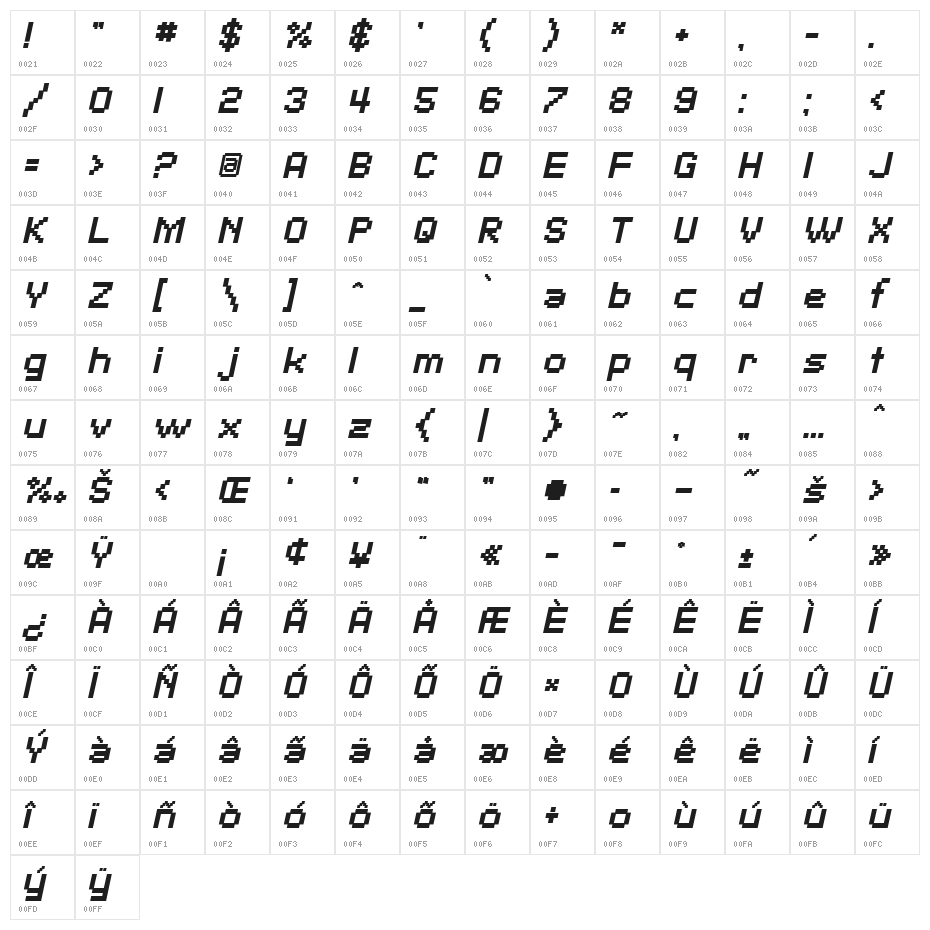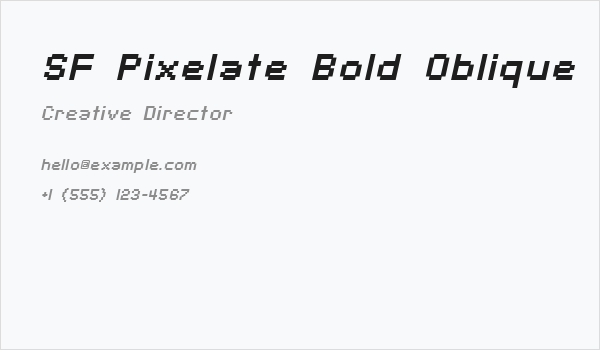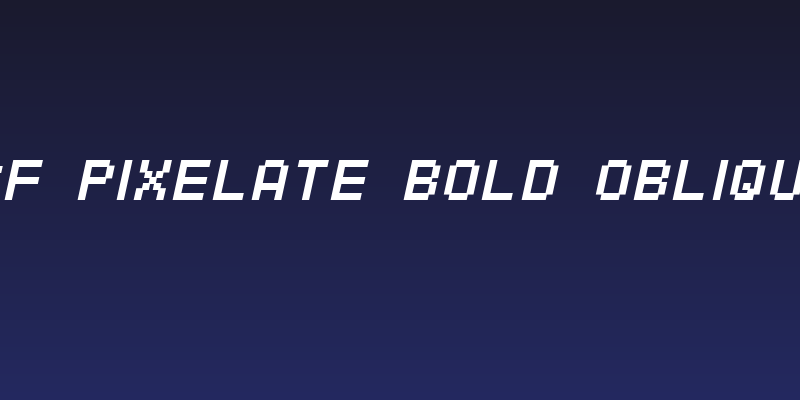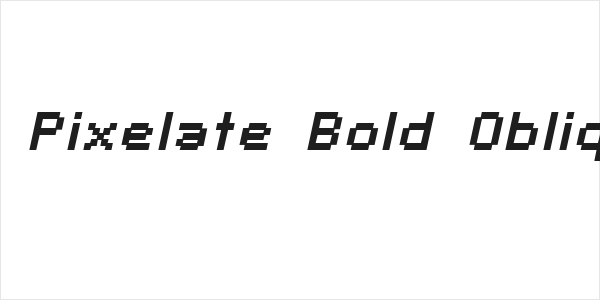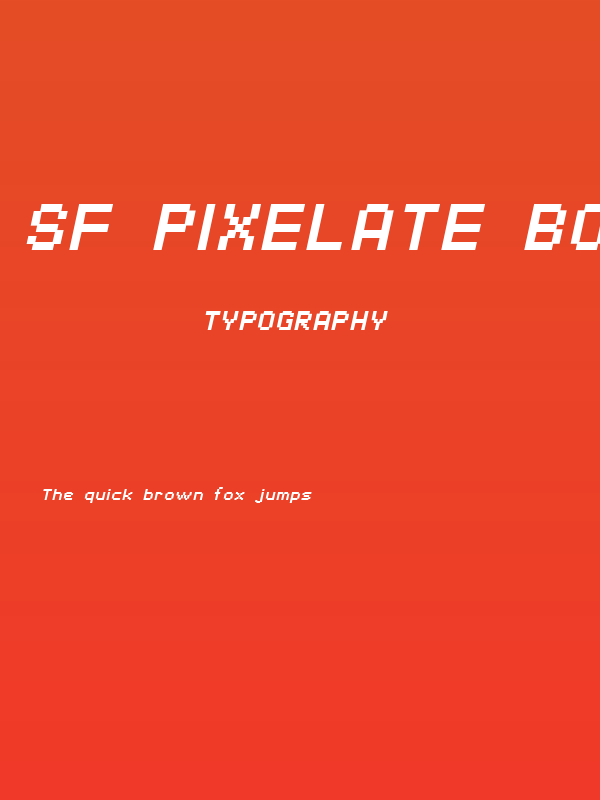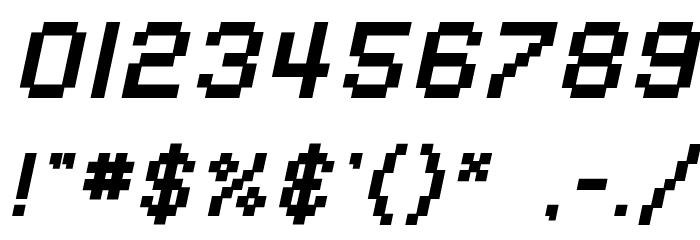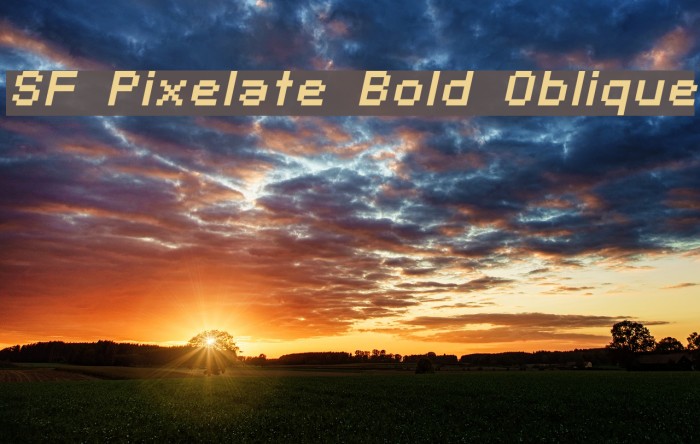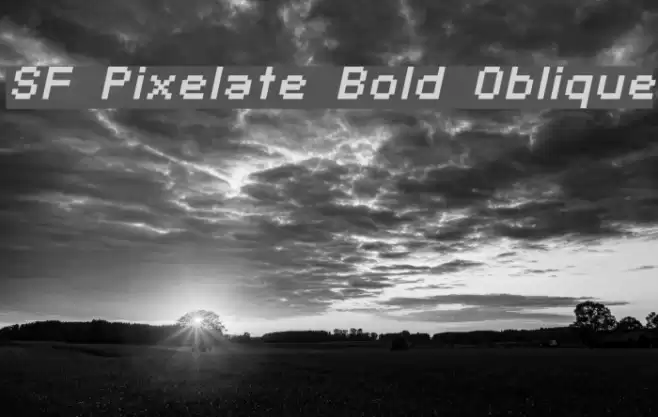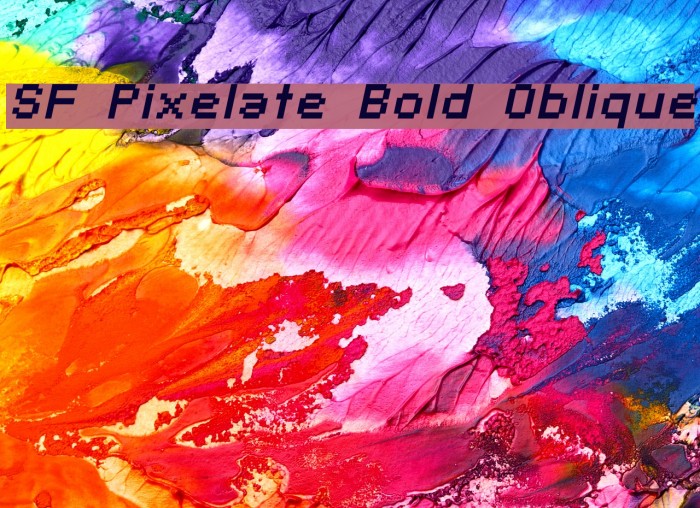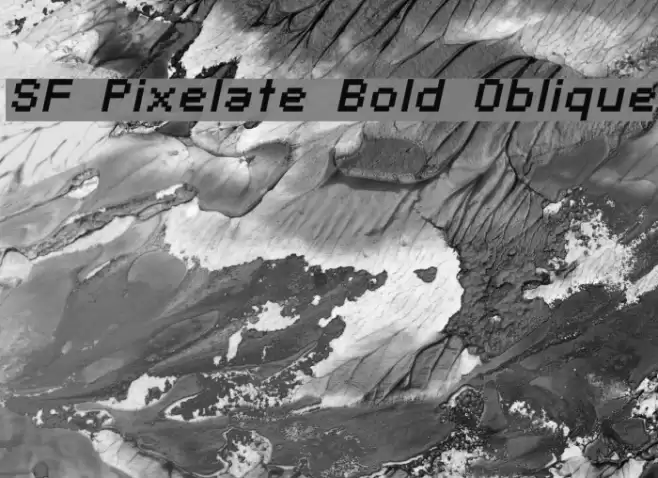
SF Pixelate Bold Oblique Font
SF Pixelate Bold Oblique Description
This font features a bold, pixelated design with an oblique slant, reminiscent of retro video game aesthetics. The characters are constructed with a blocky, grid-like structure, giving it a distinct digital appearance. The uppercase and lowercase letters maintain a consistent style, with sharp angles and uniform pixelation. Numbers and special characters follow the same design principles, ensuring a cohesive look across all glyphs. The font's boldness and oblique style add a dynamic and energetic feel, making it suitable for projects that aim to capture a nostalgic or tech-driven vibe.
| Overall Style | Retro, Digital |
| Proposed Projects | Ideal for video game designs, tech-themed posters, digital art projects, and retro-style branding. |